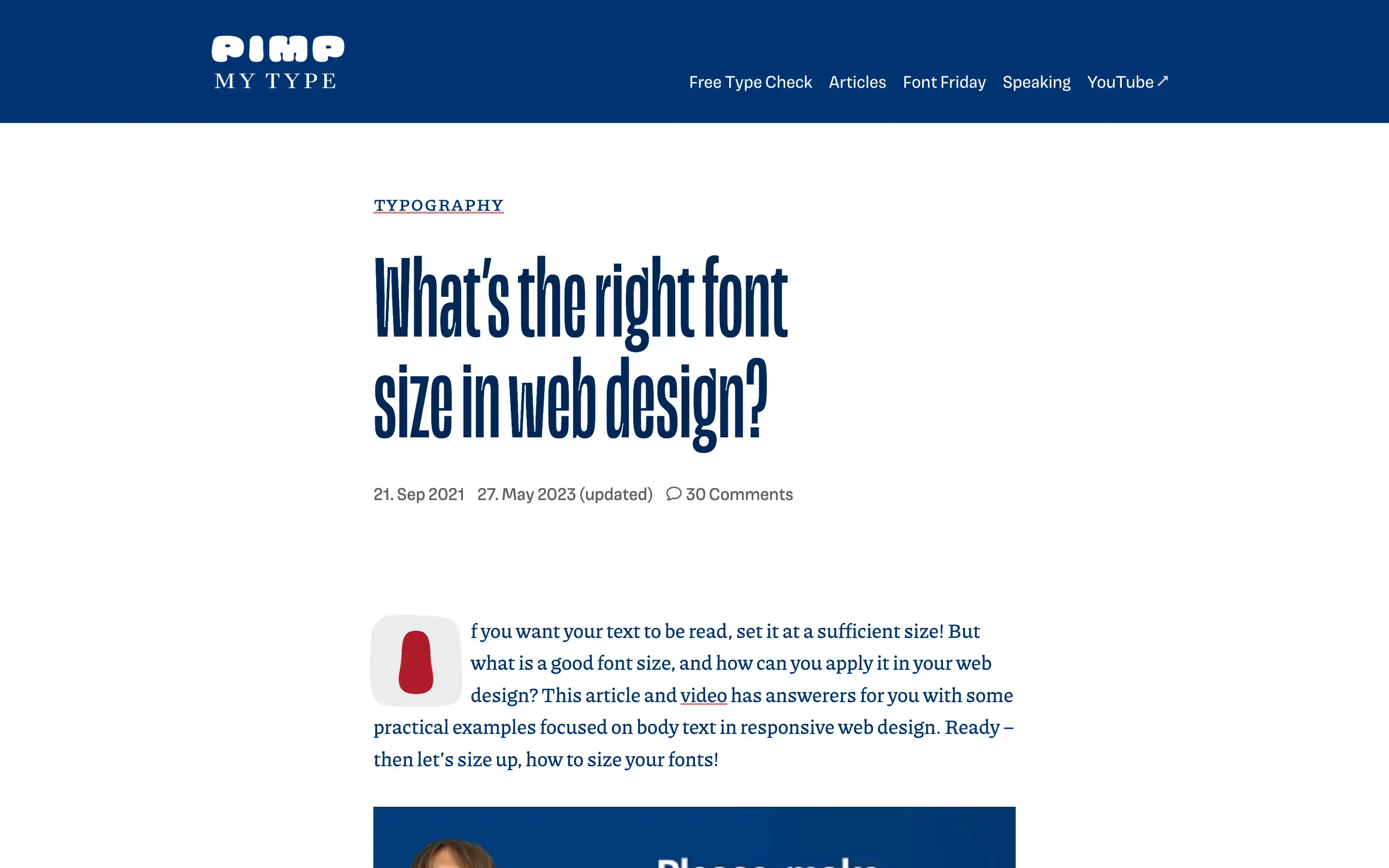
Optimal font size for effective web design
The article “What’s the right font size in web design?” provides guidelines for selecting appropriate font sizes for various text types in web design. It suggests starting body text at 16px (1em) and adjusting based on the device, recommending up to 24px (1.5em) for desktop and slightly smaller sizes for mobile. For display text, such as headings, it advises 40px (2.5em) by default, scaling between 32px (2em) on mobile and up to 64px (4em) on desktop. Functional text, like captions and navigation, is recommended between 12px to 14px (0.75em to 0.875em), with a maximum of 16px (1em) on desktop.
The resource emphasizes the use of relative units like em and rem for scalability and responsiveness. It also discusses the importance of adjusting font sizes relative to the viewer’s distance from the device, suggesting larger fonts for larger screens. Additionally, it highlights that the choice of typeface affects readability, noting that typefaces with larger x-heights may appear larger at the same size compared to those with smaller x-heights.